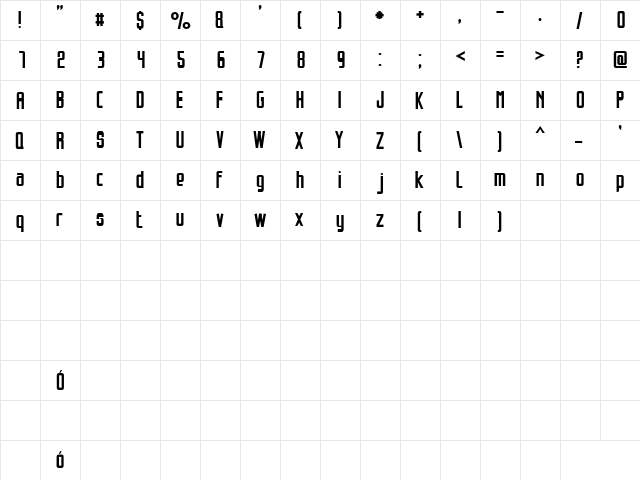
Opeln2001 Szeroki Regular
Design Context for Opeln2001 Szeroki Typeface
Opeln2001 Szeroki is a composed and adaptable typeface that performs quietly and consistently across a wide range of design contexts.